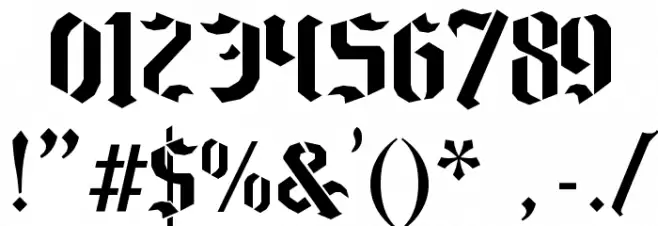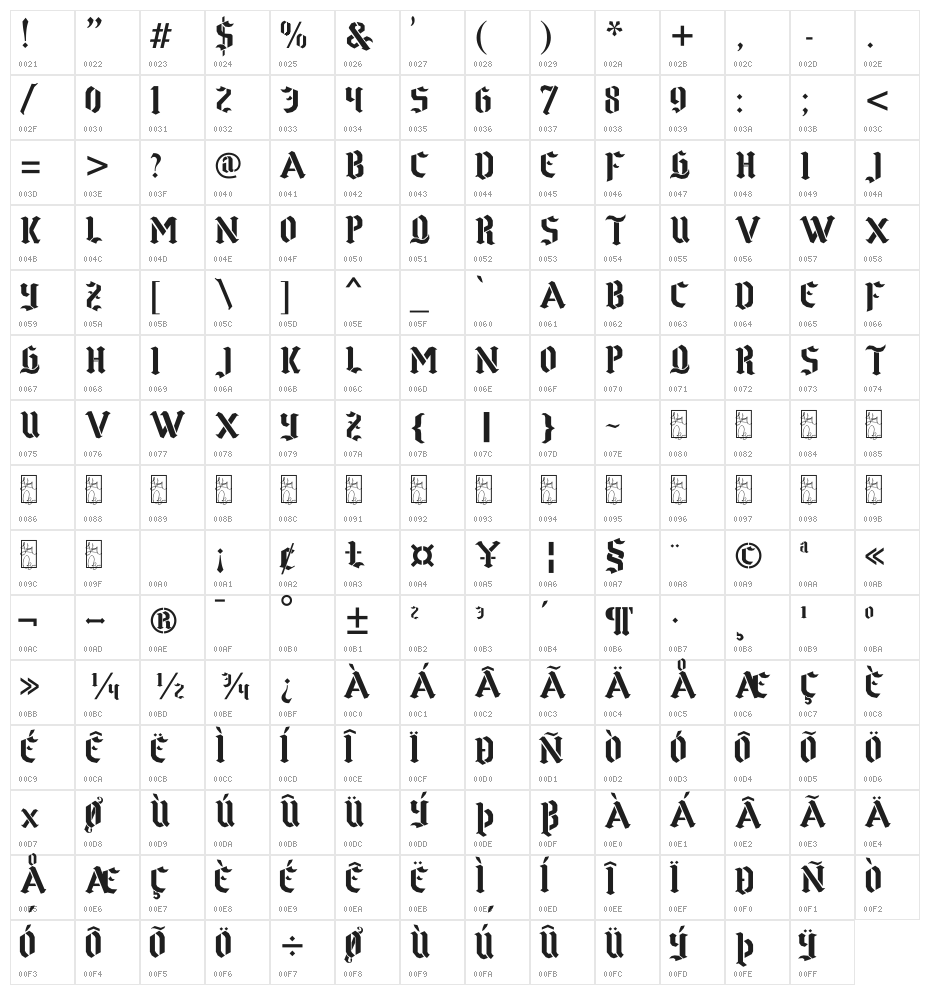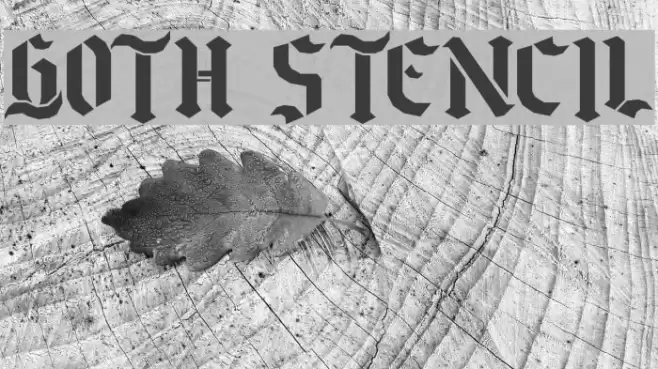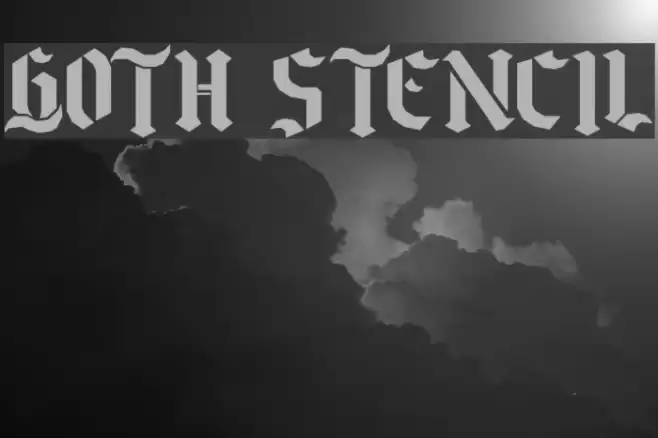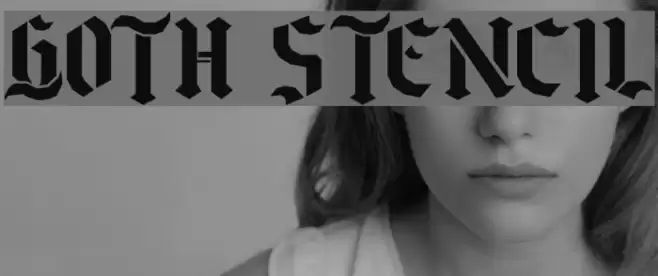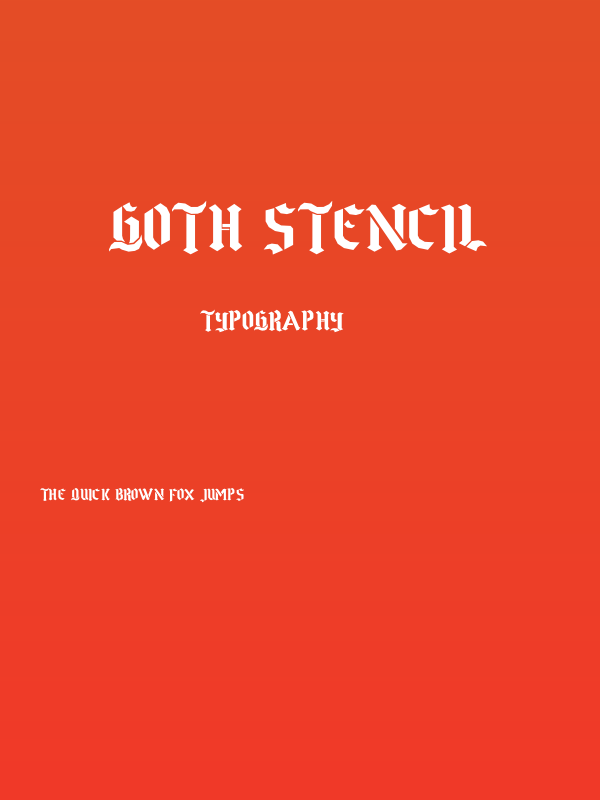
Goth Stencil Font
Goth Stencil Description
This font features a bold, dramatic style with sharp, angular edges and a distinct stencil effect. The characters are reminiscent of Gothic script, with a modern twist that incorporates cut-out sections, giving it a unique and edgy appearance. The uppercase letters are particularly striking, with their intricate design and strong presence. The lowercase letters maintain the same boldness, ensuring consistency throughout the typeface. Numbers and special characters are designed with the same attention to detail, making them stand out while maintaining readability. This font is perfect for projects that require a bold statement and a touch of historical elegance.
Overall StyleModern Gothic
Proposed ProjectsIdeal for branding, posters, album covers, and any design needing a bold, dramatic impact.